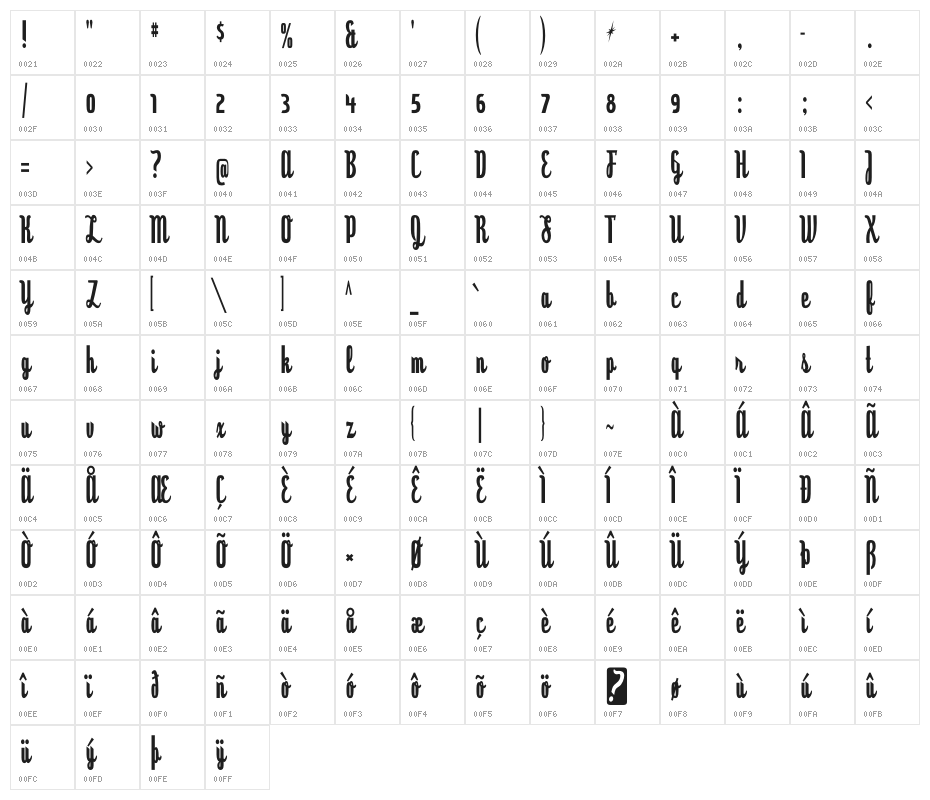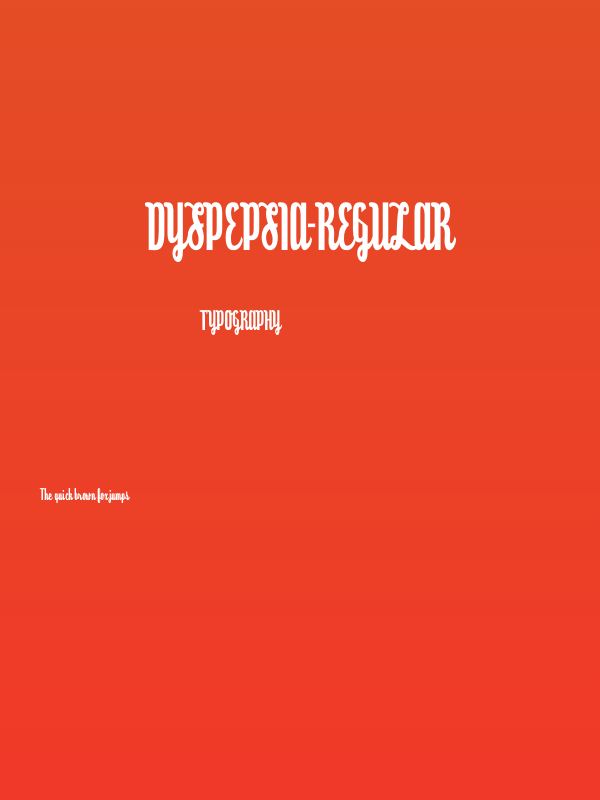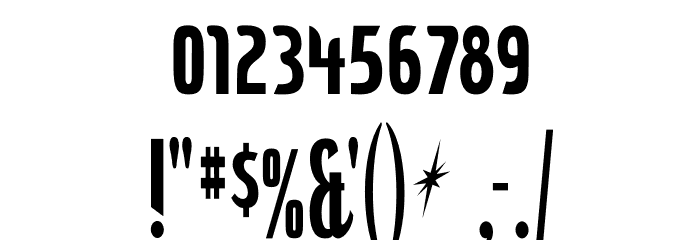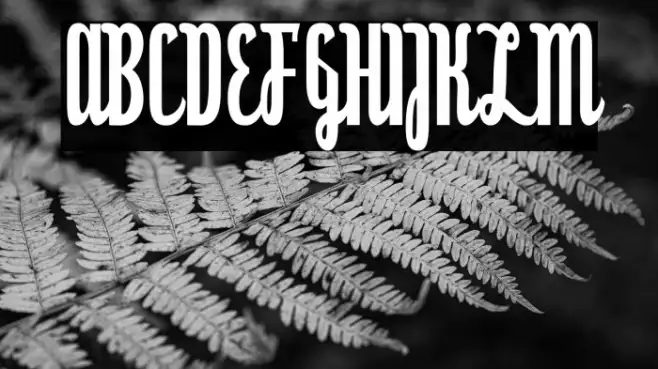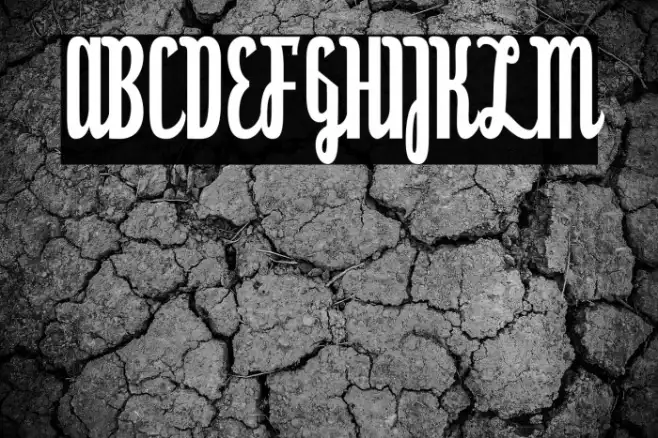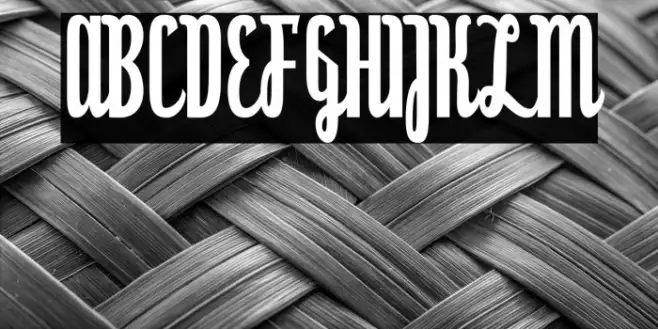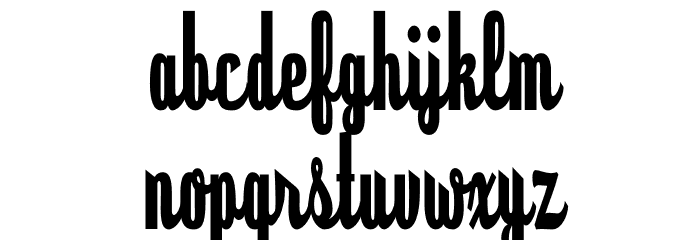
Dyspepsia-Regular Font
Dyspepsia-Regular Description
This font features a bold and decorative style with a strong presence. The uppercase letters are tall and narrow, with a unique flair that adds character to each glyph. The lowercase letters maintain a consistent style, complementing the uppercase with their rounded and slightly condensed form. Numbers are clear and bold, ensuring readability. Special characters are designed to match the overall aesthetic, providing a cohesive look across all elements. The font's distinct style makes it suitable for eye-catching designs.
| Proposed Projects | Ideal for posters, branding, and headlines that require a strong visual impact. |